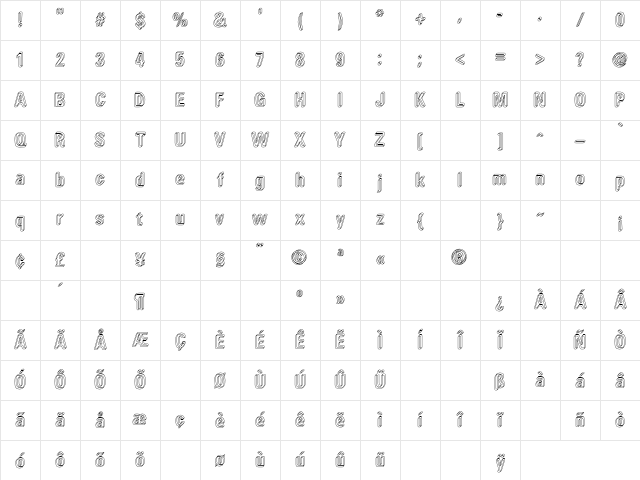
LowTech Regular
LowTech Family
Design Context for LowTech
LowTech has a distinctly futuristic character, with geometric precision and clean angles that feel at home in technology, gaming, and sci-fi contexts.